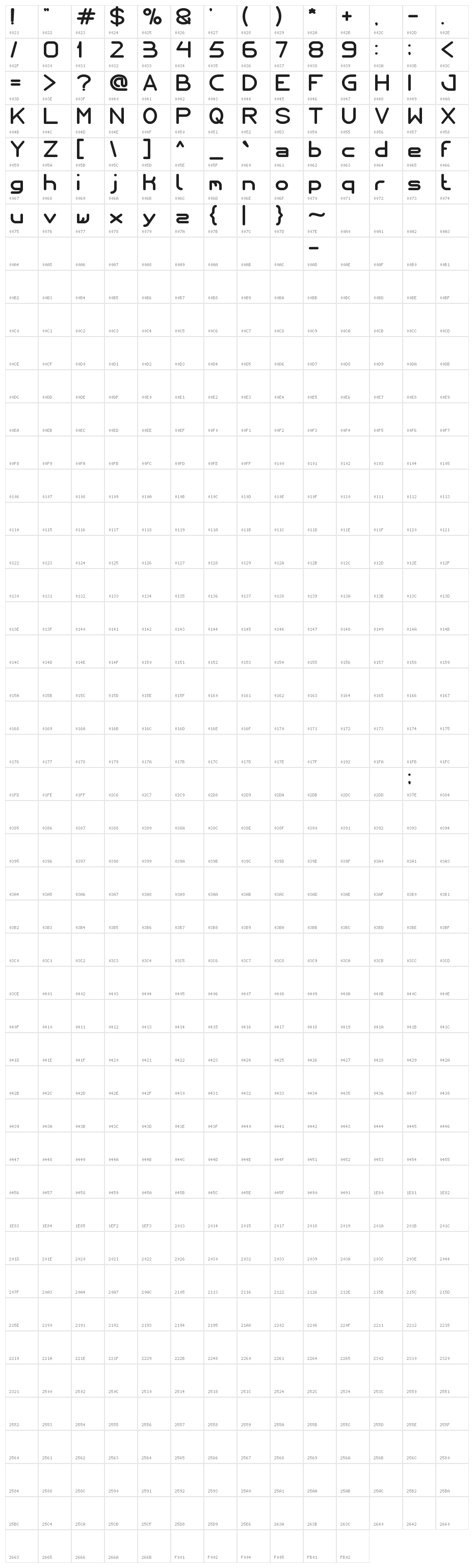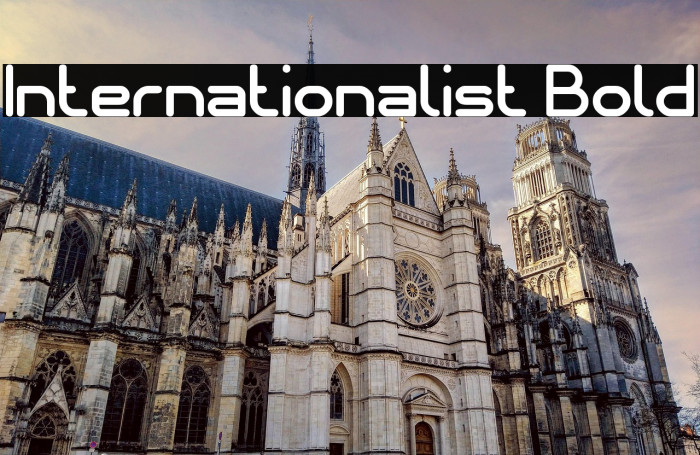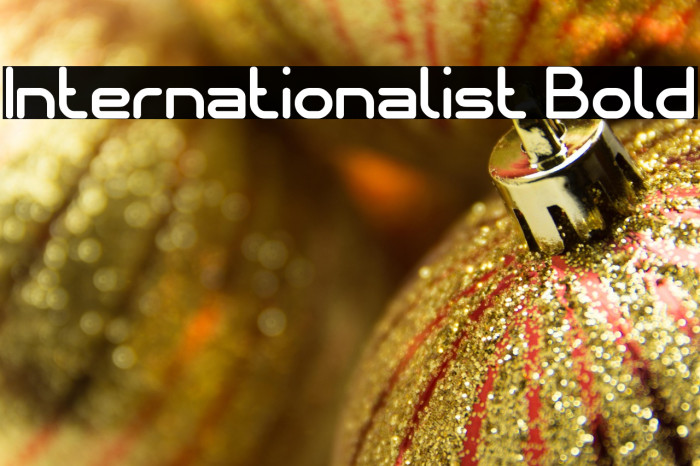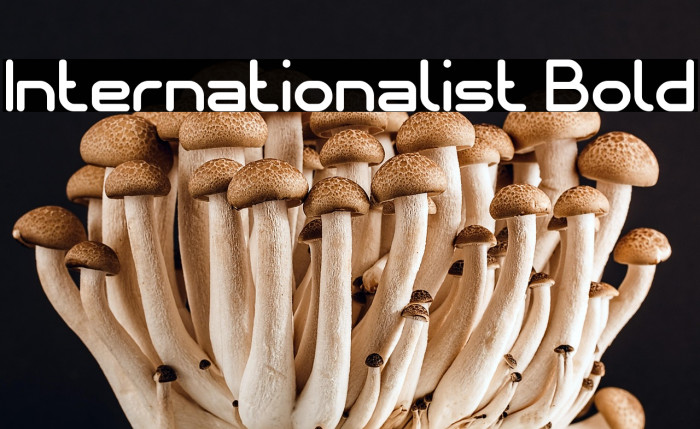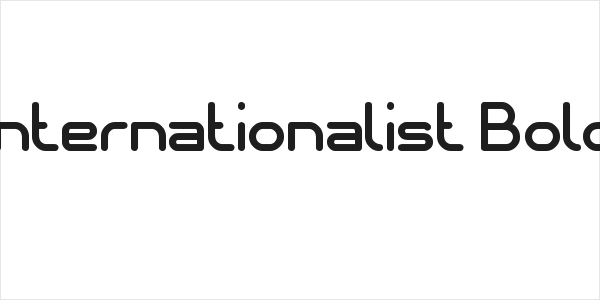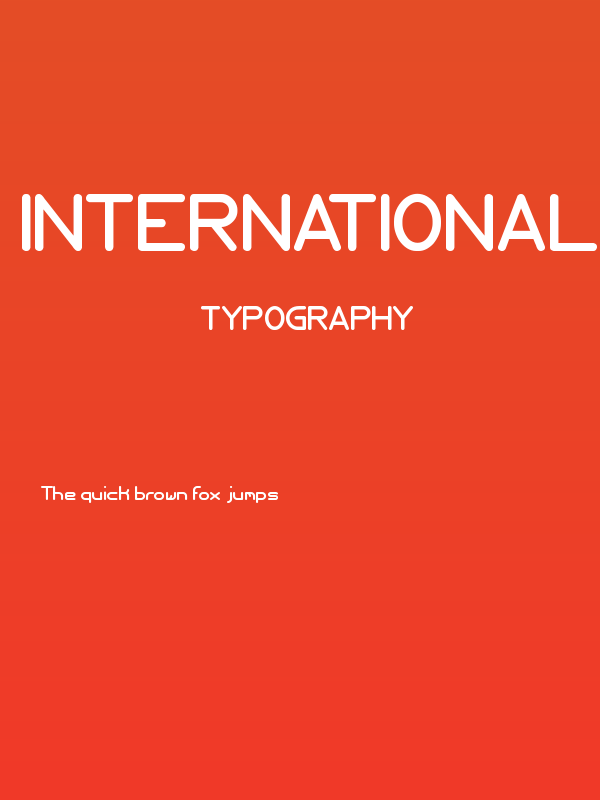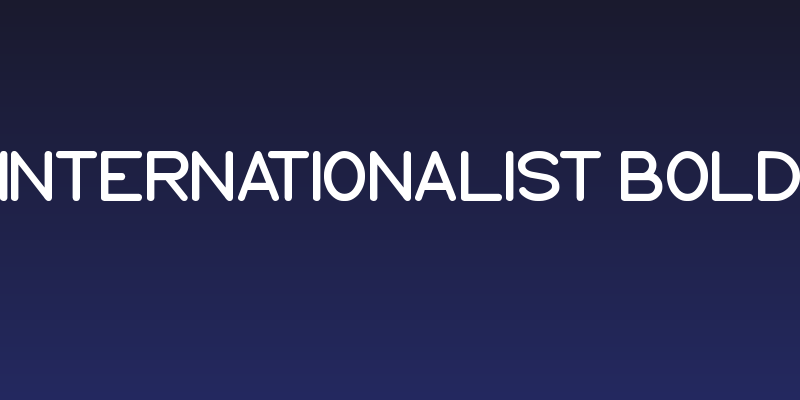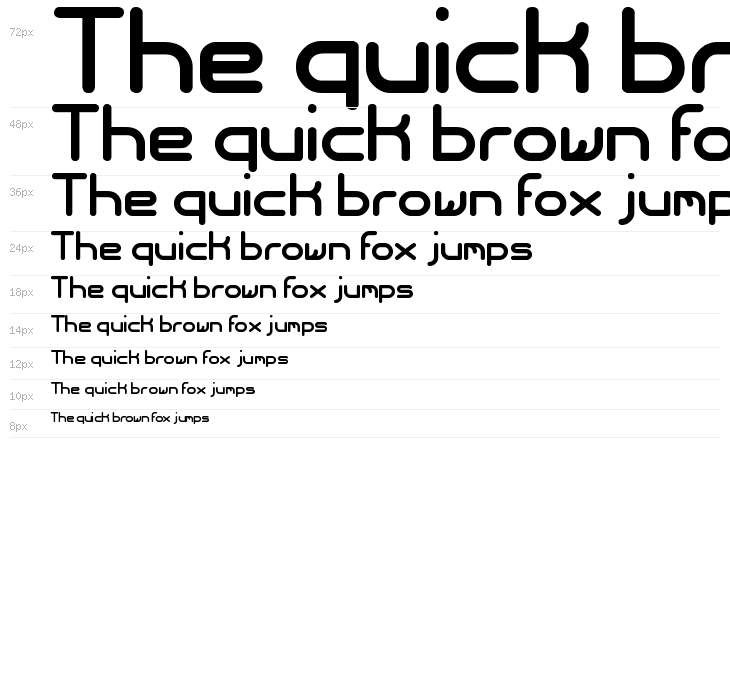
Internationalist Bold Font
Internationalist Bold Description
This font features a modern, rounded sans-serif style with a bold weight. The characters are clean and geometric, with consistent stroke thickness throughout. The rounded edges give it a friendly and approachable appearance, making it suitable for a variety of design contexts. The uppercase and lowercase letters maintain a uniform height, contributing to a cohesive look. The numerals and special characters are designed to match the overall aesthetic, ensuring visual harmony across all elements. This font is versatile, offering a contemporary feel that can be adapted to both digital and print media.
| Use Case | Headlines, Logos, Digital interfaces |
| Proposed Projects | Ideal for branding, advertising, digital interfaces, and signage projects. |